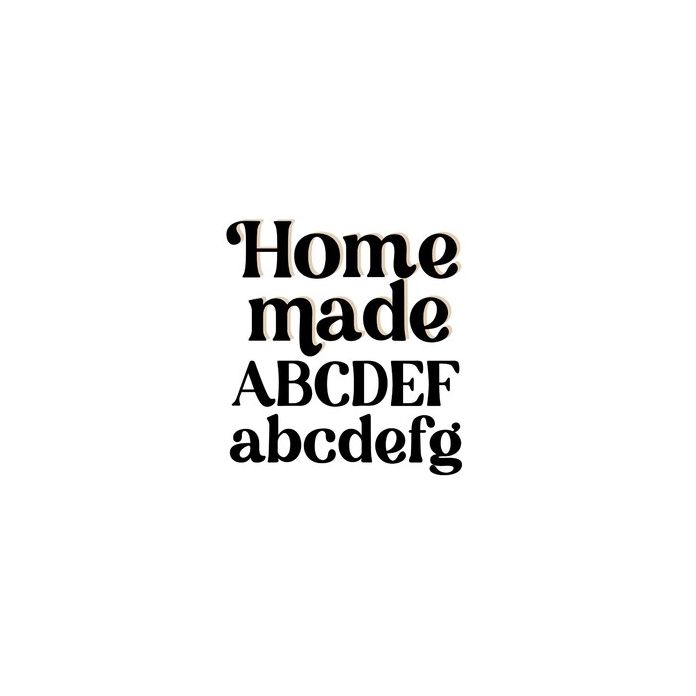
BFC Homemade Modern Serif Fancy Classy Block Font
Homemade is a fancy modern serif font. It has lots of extra characters you can find in your glyph panel!